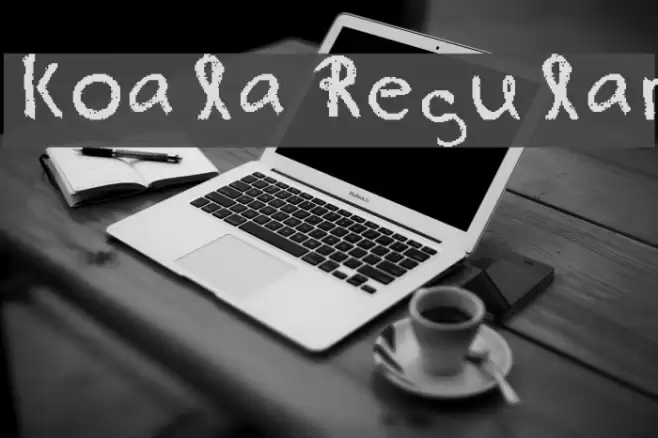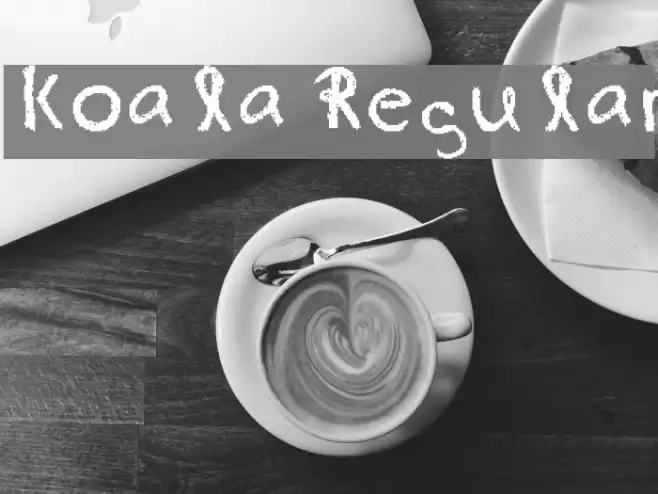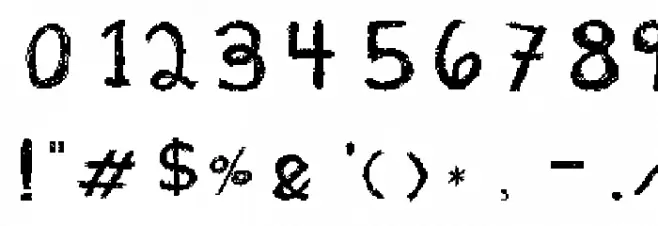
koala Regular Font
koala Regular Description
This font features a playful and whimsical style, characterized by its hand-drawn appearance. The letters have an uneven, organic quality, with varying stroke thicknesses that give it a lively and dynamic feel. The uppercase and lowercase letters maintain a consistent style, with rounded edges and a slightly irregular baseline, adding to its charm. The numerals and special characters follow the same playful design, making it suitable for creative and informal projects. Its unique style makes it stand out, offering a friendly and approachable look.
A playful, hand-drawn font with a whimsical and dynamic style from Uncategorized fonts.
- Proposed Projects: Ideal for children's books, greeting cards, playful branding, and creative posters.
- Use Case: Headlines, Logos, Creative projects